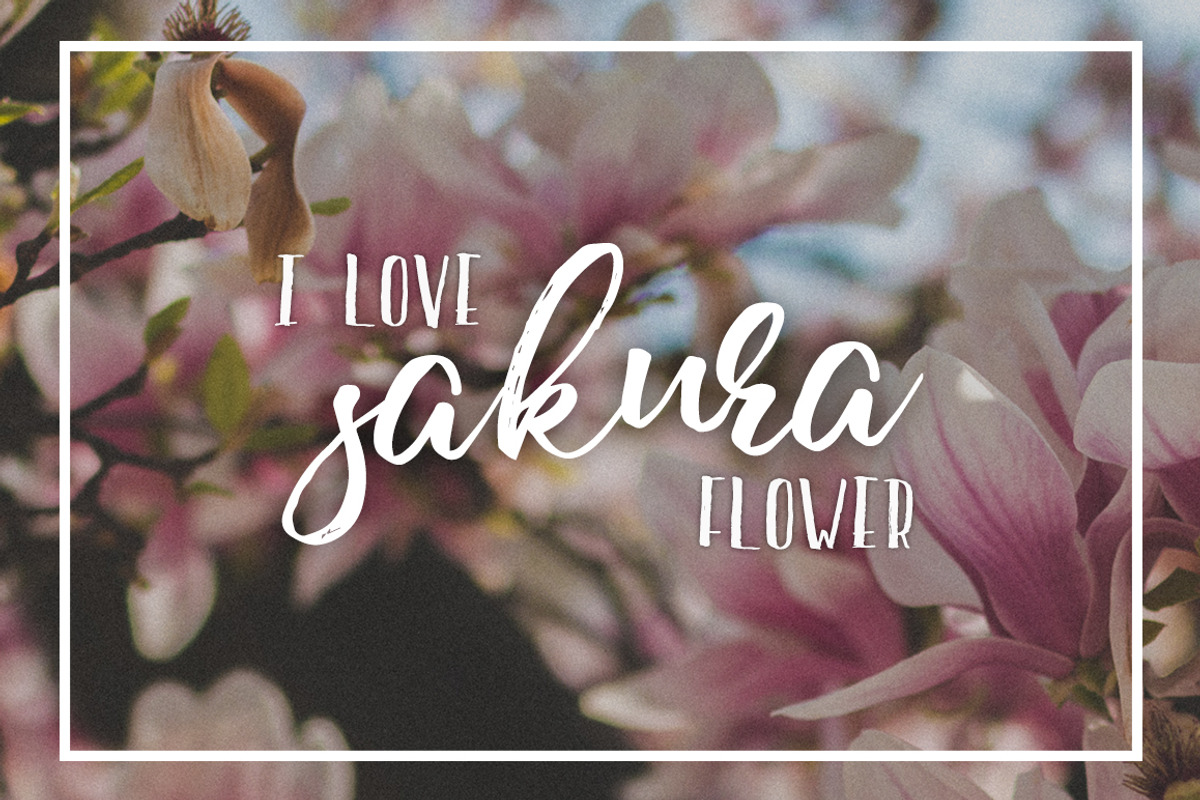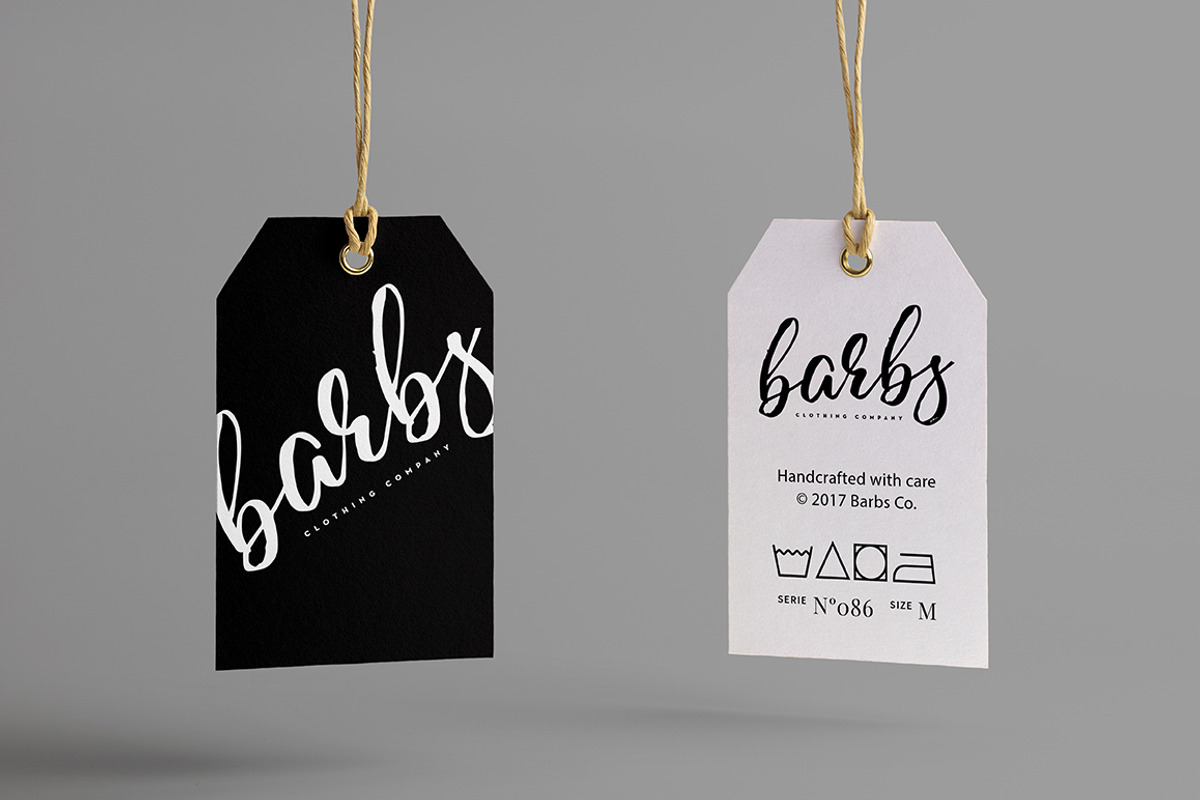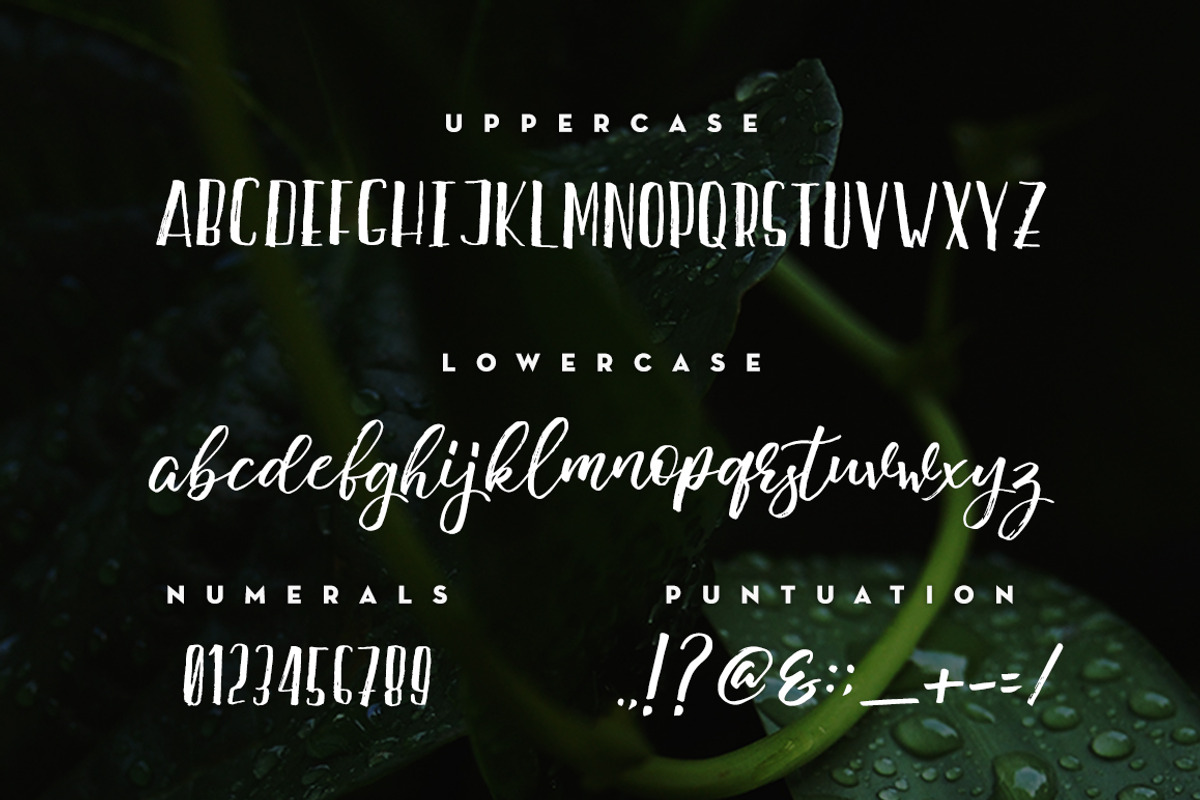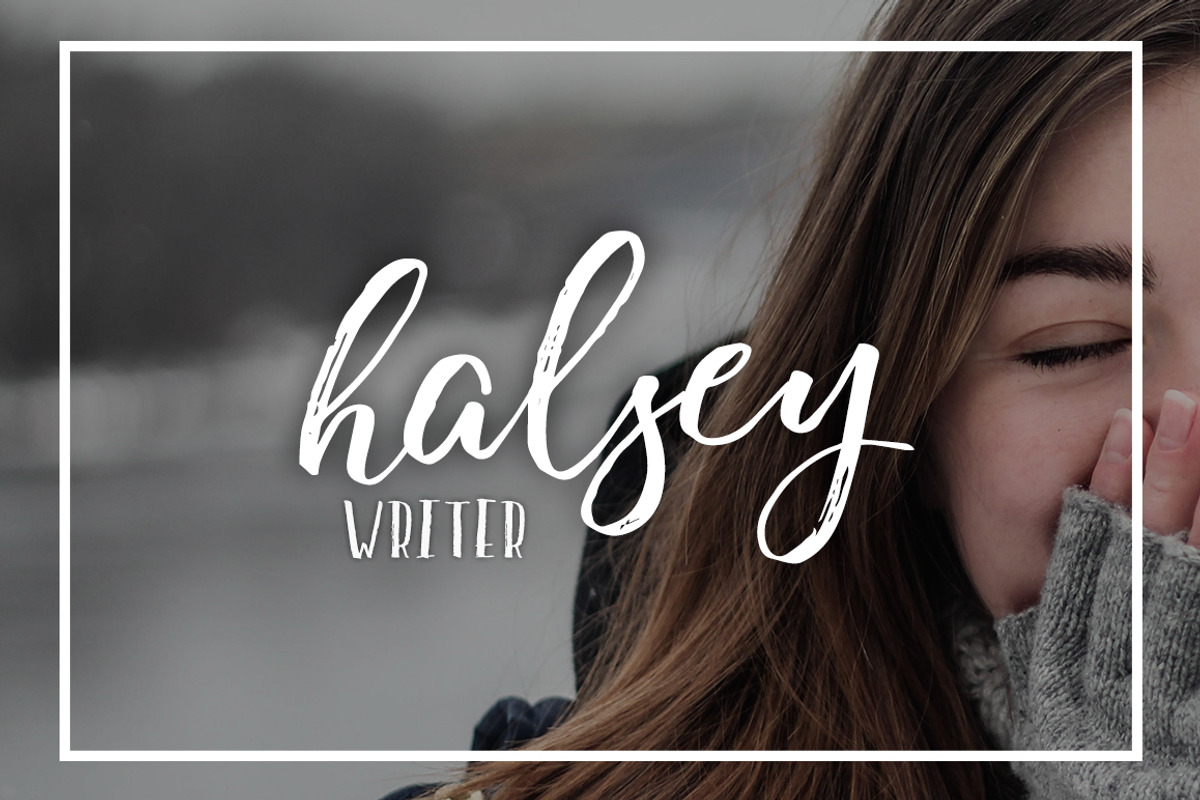
Hello Tayledic Handstylish Font Duo
Hello Tayledic Handstylish Font Duo by Alif Devan R. is a font selected for branding, posters, packaging, typography.
Why Hello Tayledic Handstylish Font Duo is worth a look
Hello Tayledic Handstylish Font Duo by Alif Devan R. fits naturally into Branding, posters, packaging, typography.